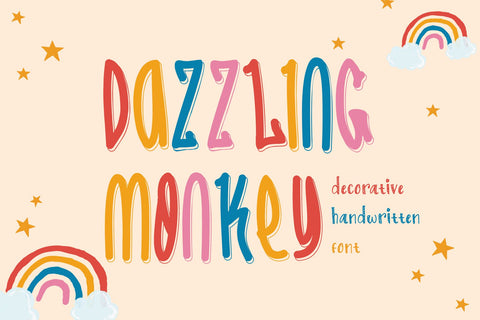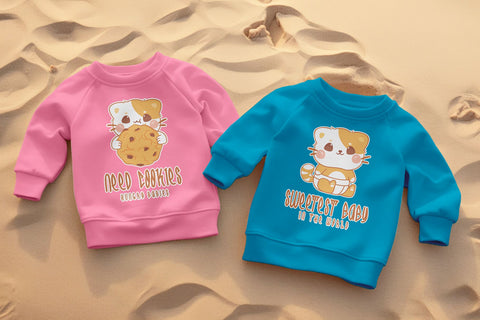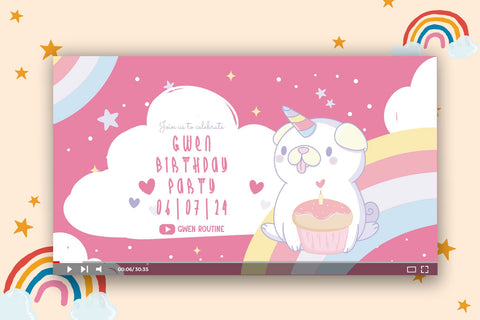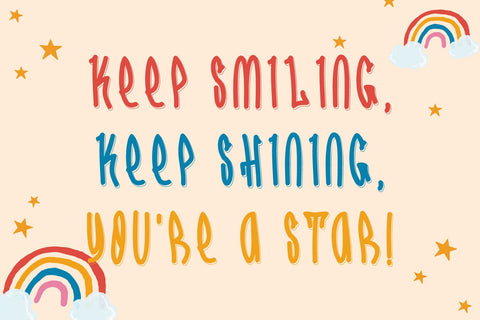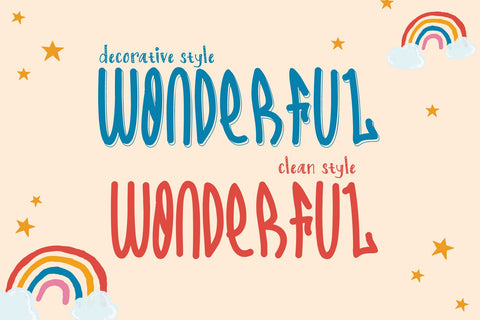
Dazzling Monkey - Thiny Decorative Handwritten Font
Dazzling Monkey is a thin, decorative handwriting font that exudes a playful and whimsical charm. With its elegant, slender strokes and artistic flourishes, this font is perfect for adding a touch of personality and creativity to any design project. Ideal for invitations, greeting cards, and stylish headlines, Dazzling Monkey brings a unique, handwritten aesthetic that stands out in both casual and formal settings. Its delicate appearance enhances readability while adding a decorative flair, making it an excellent choice for designs that require a blend of sophistication and fun.